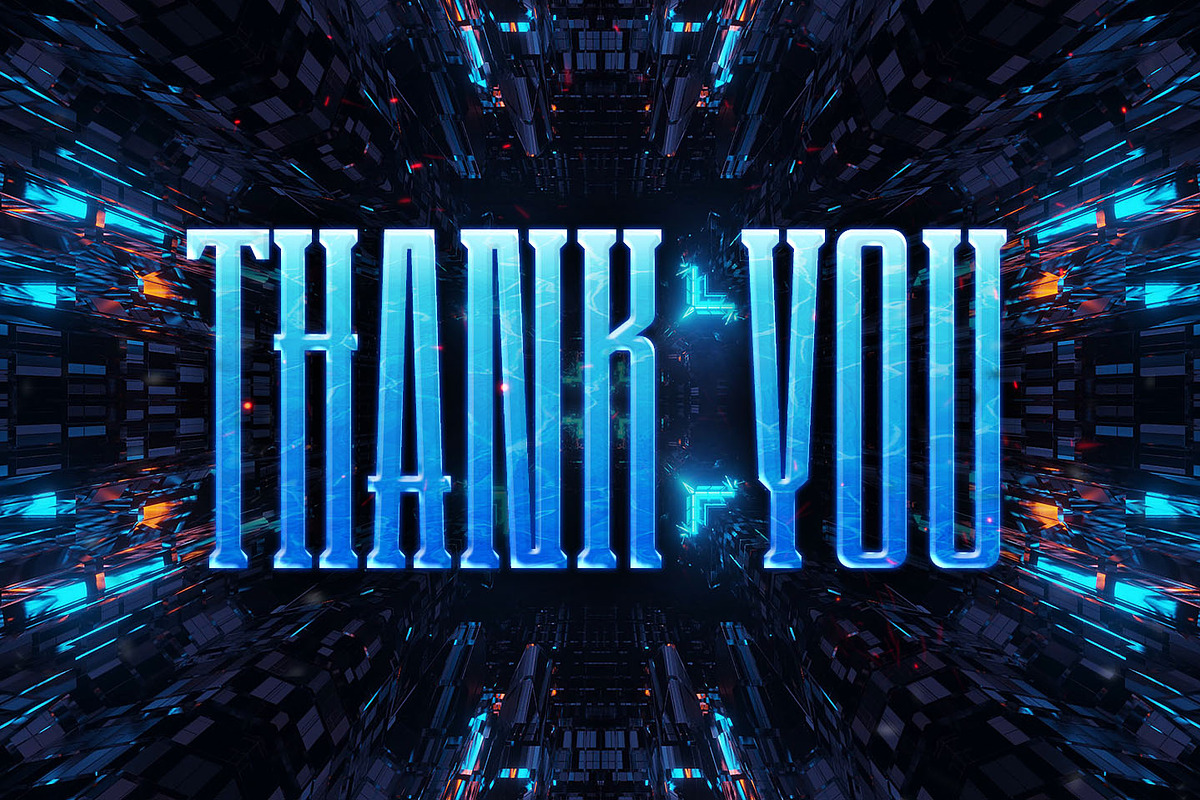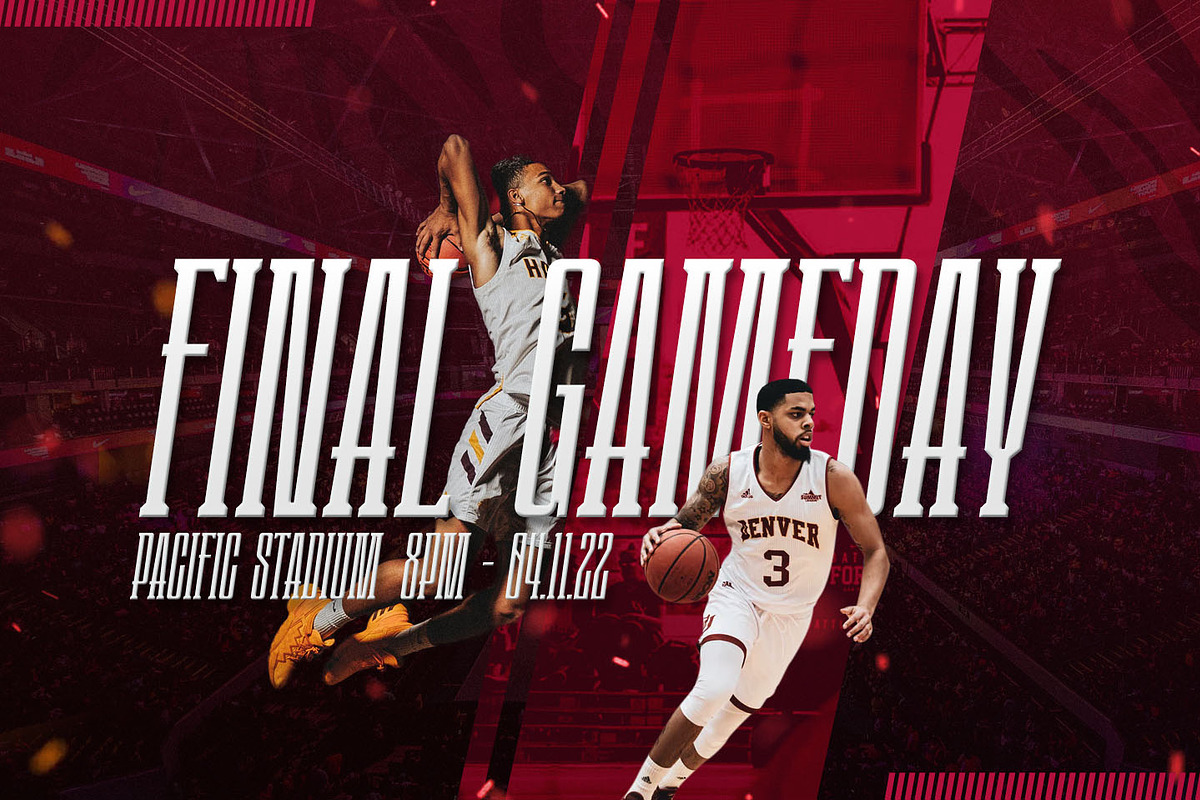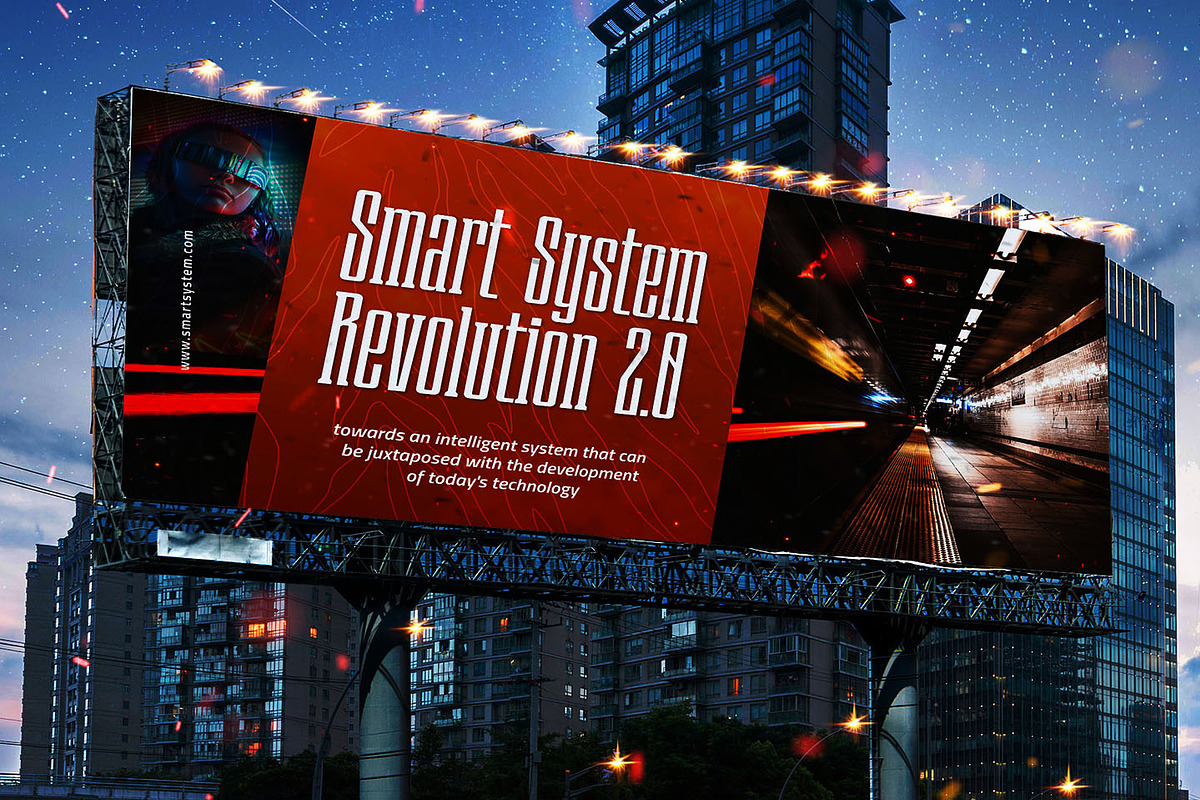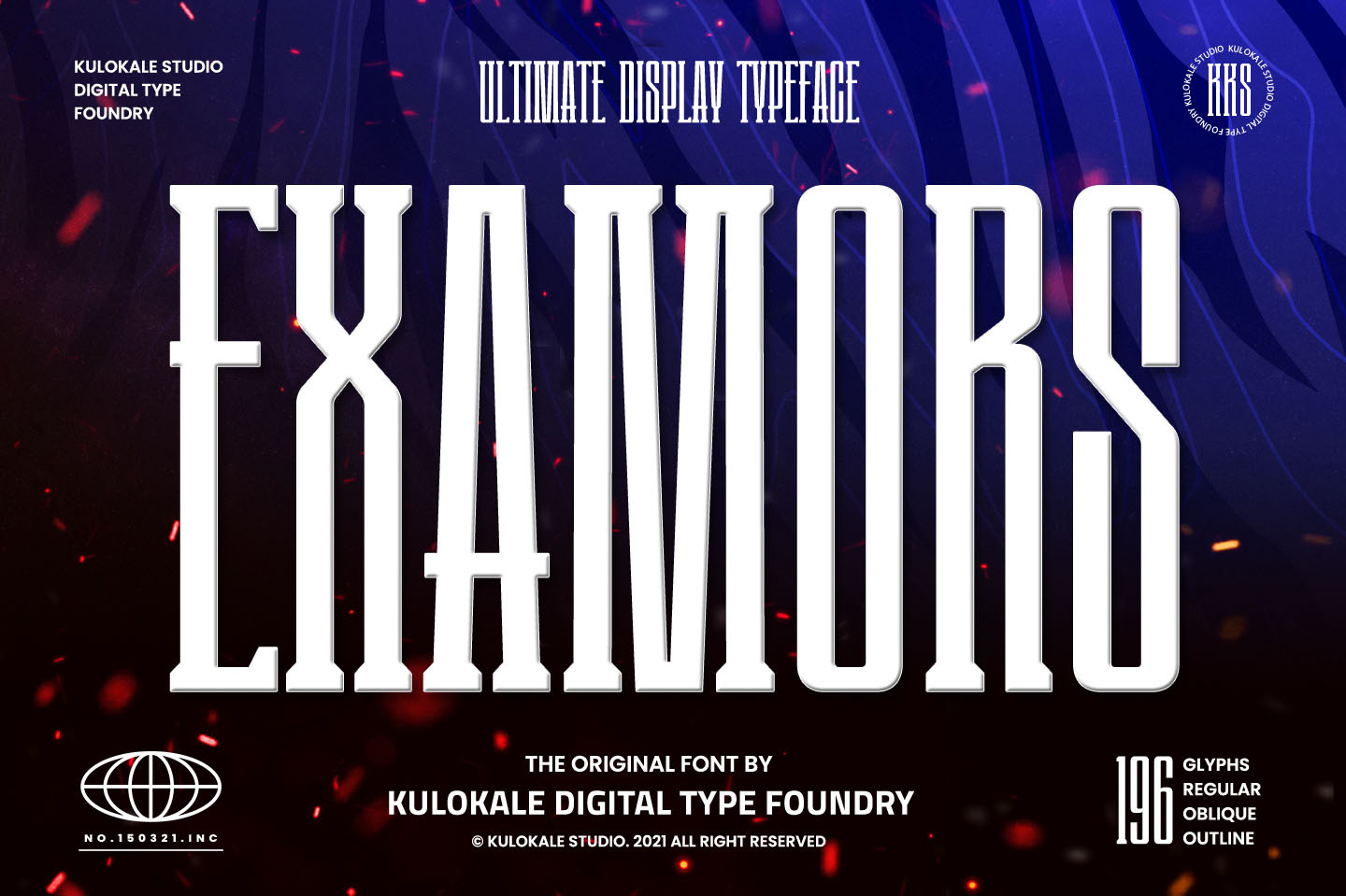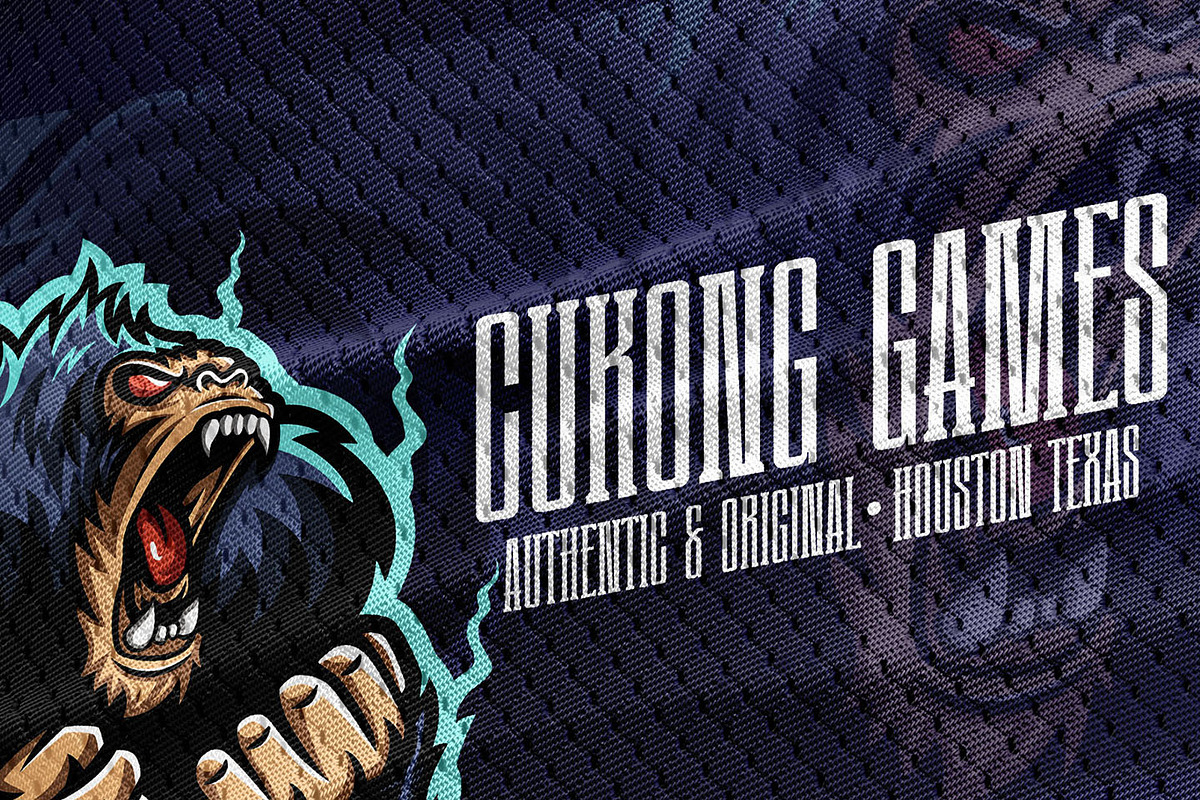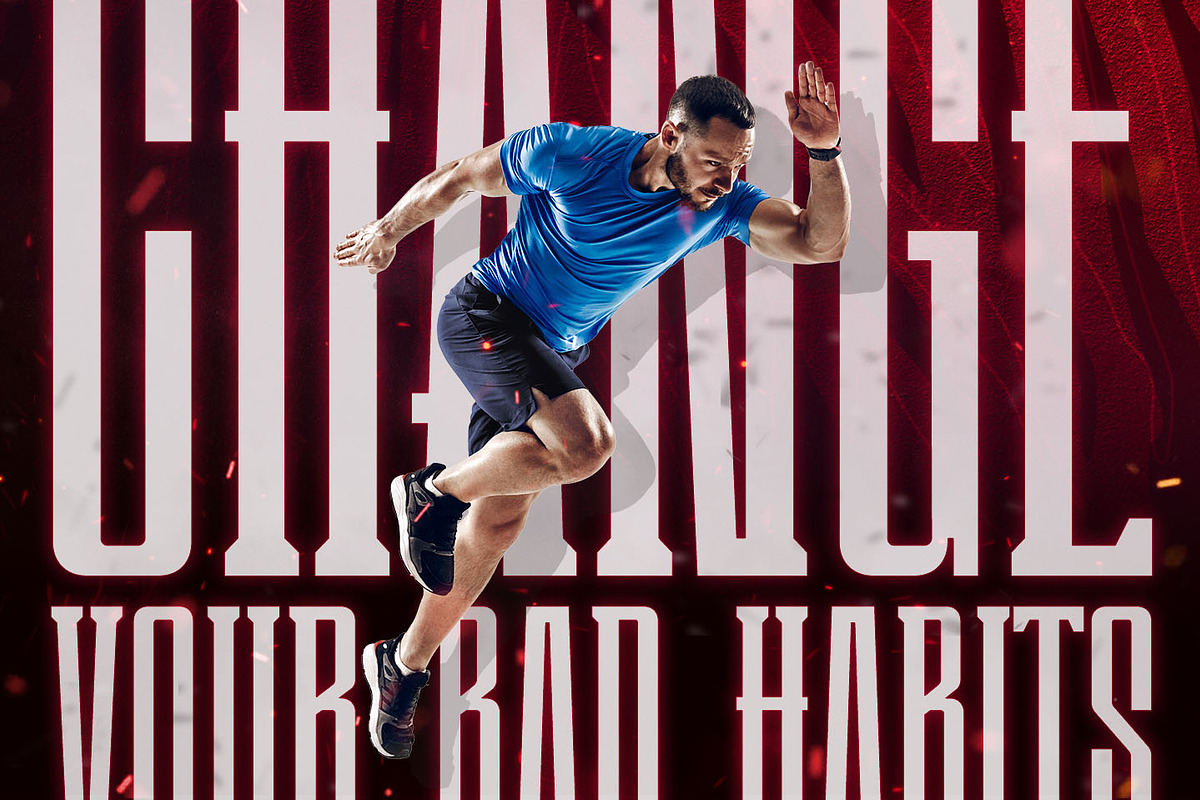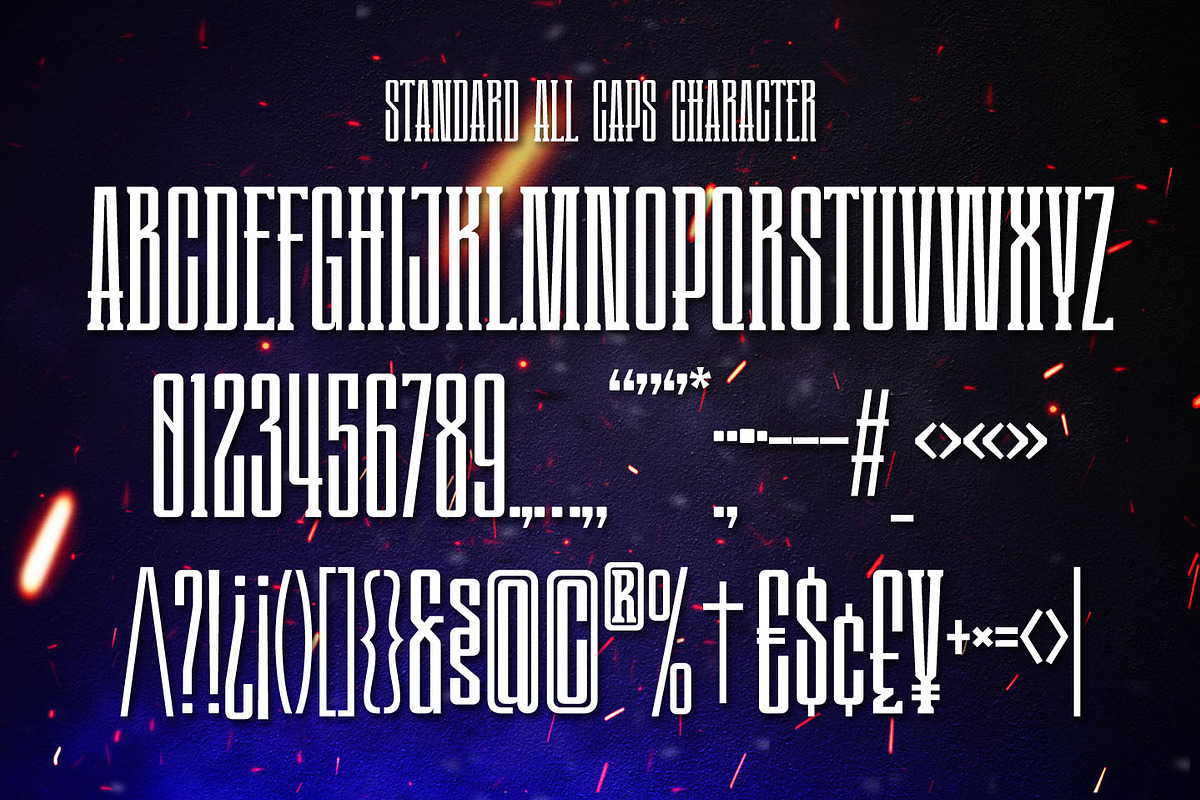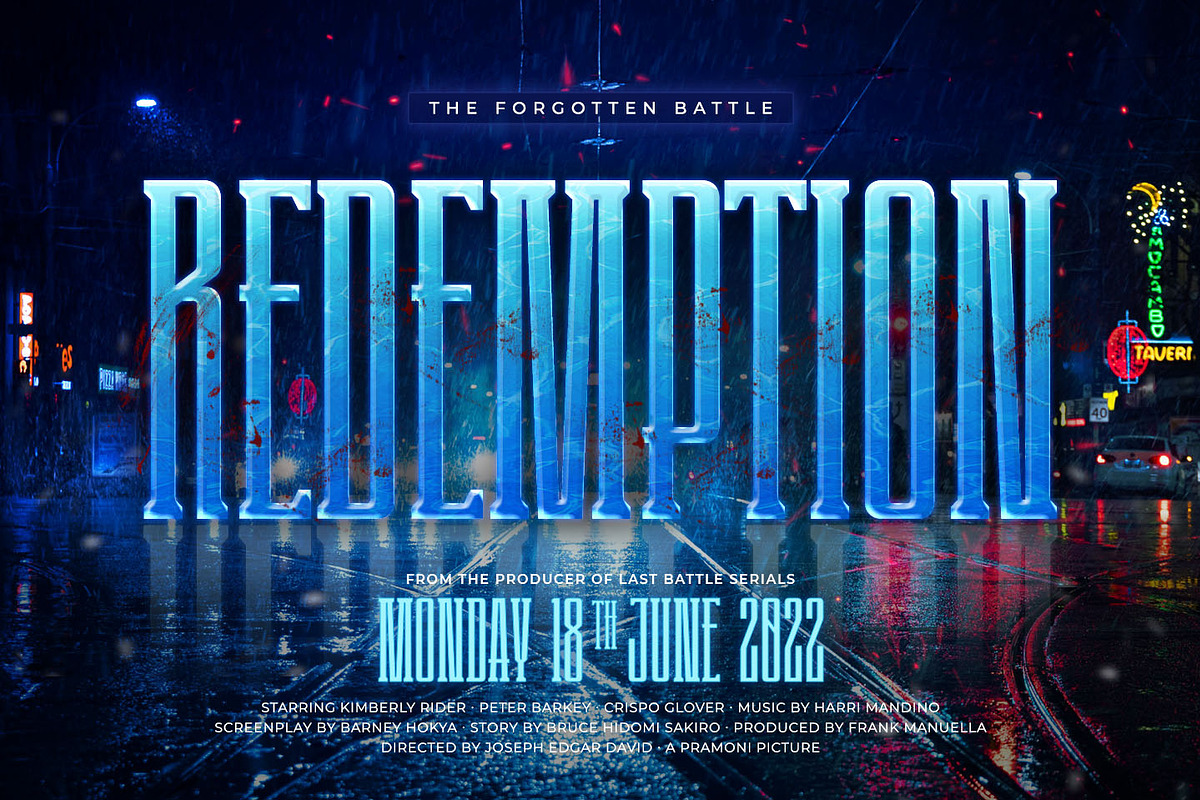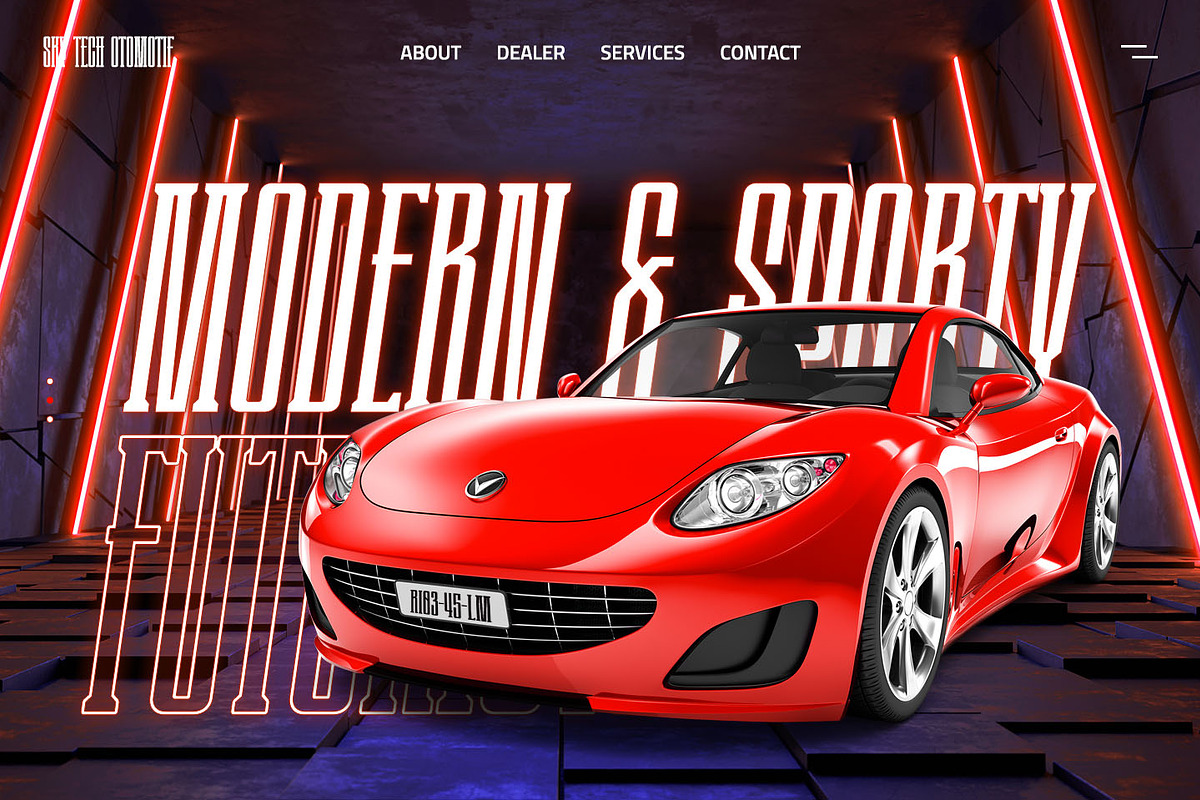
Examors Ultimate Sports Display Font
Examors is an ultimate sports display font, and with a style that is very different from the others. This font comes in four styles, Regular, Outline, Oblique and Oblique Outline Version.
Examors is well-suited for posters, social media, headlines, magazine titles, clothing, large print formats - and wherever you want to be seen. Inspired by the style of design that is currently popular, and this is the answer to all the needs of every idea that you will pour in this modern era.